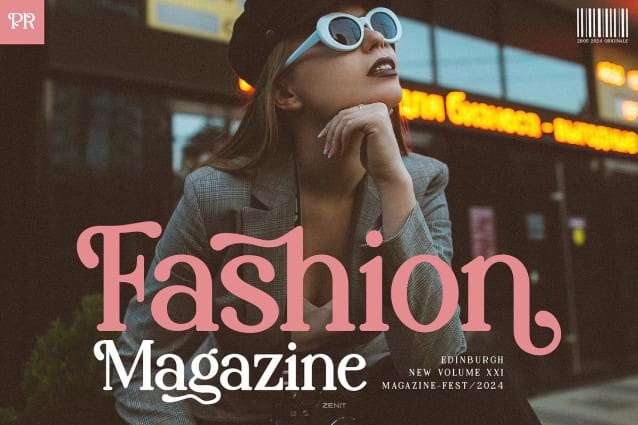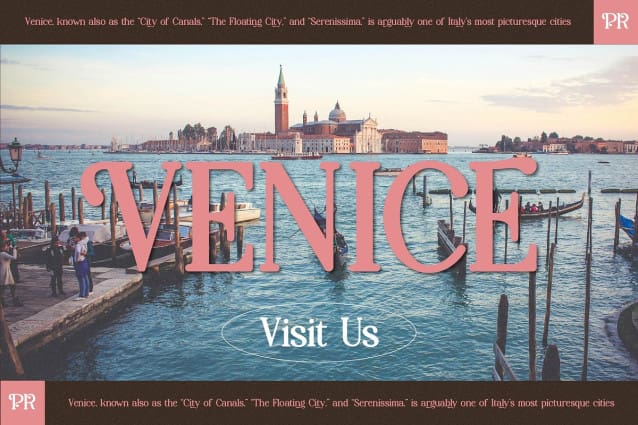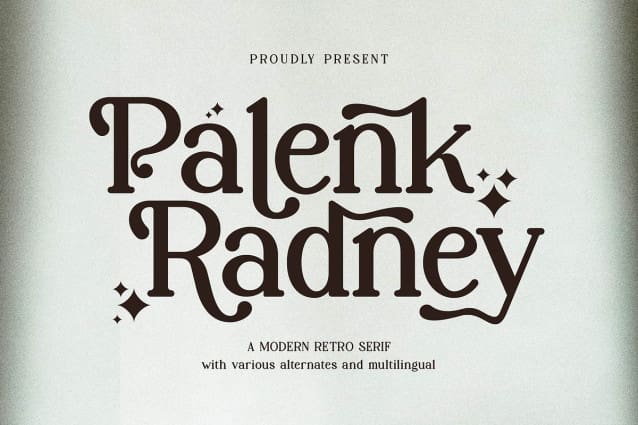
Palenk Radney Font
Palenk Radney Font | Modern Retro Serif, from Denustudios, suitable for any projects such as: logos, branding projects, homeware designs, product packaging, mugs, quotes, posters, shopping bags, t-shirts, book covers, name card, invitation cards, greeting cards, label, photography, watermark, special events, and all your other lovely projects that need a Modern Retro Serif taste.